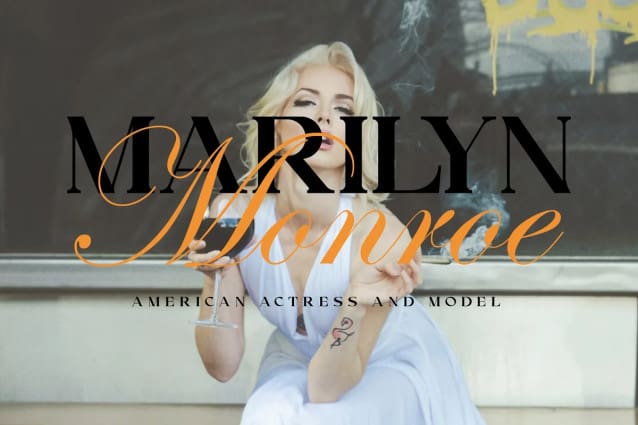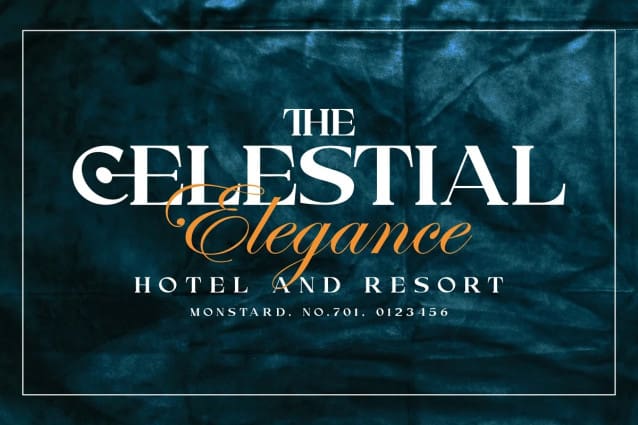
Devata Font
Devata Font is an exquisite serif luxury font that exudes sophistication and elegance. With its meticulously crafted serifs, this typeface embodies a timeless charm that is perfect for conveying a sense of refinement and opulence. The letterforms are gracefully designed, showcasing a harmonious balance between classic elements and a touch of modernity.
The Devata font captivates with its attention to detail, featuring well-defined and graceful letter shapes that contribute to a sense of luxury and prestige. The serifs, characterized by their tasteful ornamentation, add a touch of regality to each character. The overall aesthetic of “Devata” makes it an ideal choice for projects that demand a distinguished and upscale appearance, such as high-end branding, luxury packaging, or elegant editorial design.
In summary, “Devata” is a serif luxury font that stands out for its refined and timeless appeal, making it a perfect choice for projects that require an air of sophistication and prestige.